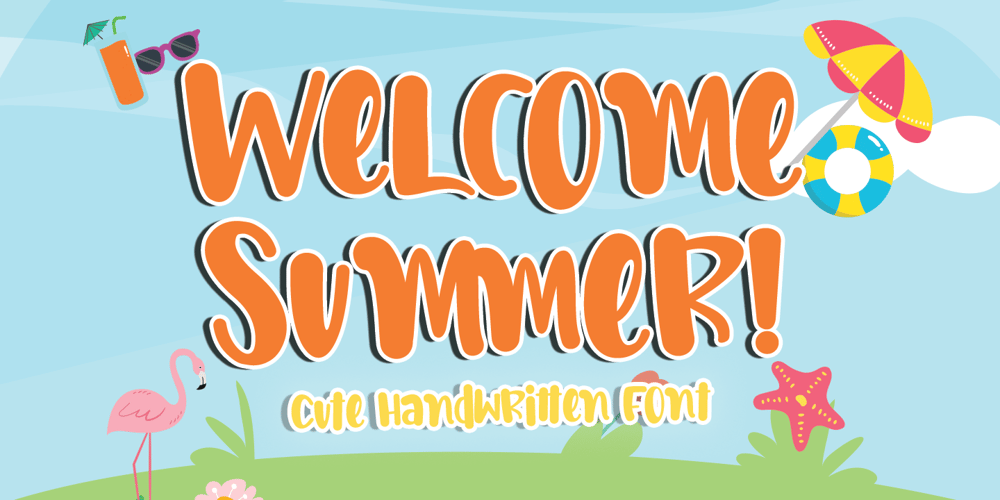
Welcome Summer
Welcome Summer Font Family was designed by Stefani Tri Rosa Setiati Christiana and published by Stefani Letter. Welcome Summer contains 1 styles and family package options. Welcome Summer is a cute and sweet handwritten font with an incredibly friendly feel. This font will turn any creative idea into a true piece of art!This font is PUA encoded which means you can access all of the cute glyphs with ease! It also features a wealth of special features including ligatures.